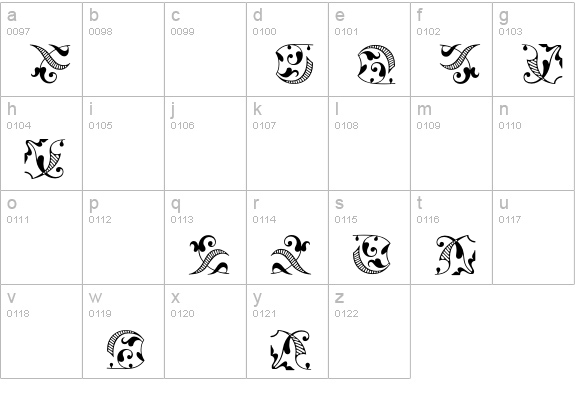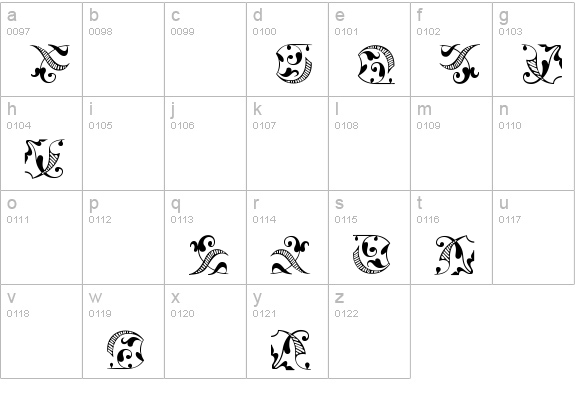
FleuronSix Font Details
FleuronSix is a stunning and elegant font that embodies sophistication and class. Its intricate details and graceful curves make it perfect for adding a touch of luxury to your designs. This font exudes a sense of refinement and beauty, making it ideal for projects that require a touch of elegance. Best of all, FleuronSix is available for free download at FontsMarket.com. This means you can easily access this exquisite font and use it in your projects without any cost. Whether you're creating invitations, logos, or any other design, FleuronSix will elevate your work with its timeless charm and style. Download FleuronSix today and add a touch of sophistication to your designs.